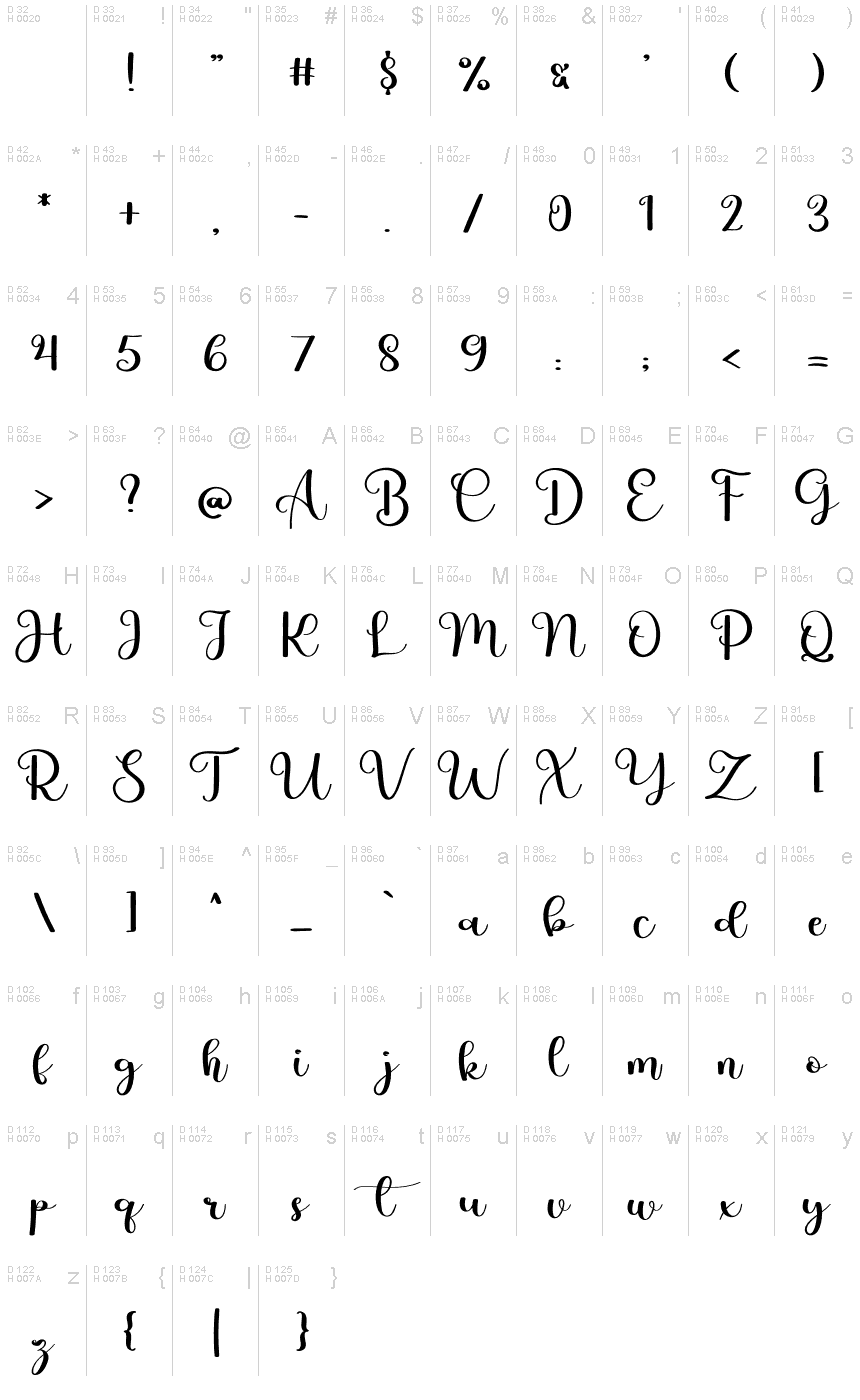
The Rain
The Rain, designed by Luluk Surotul, is a mesmerizing calligraphy font that brings a touch of elegance to any design project. Its semi-light weight gives it an airy, delicate feel that pairs perfectly with wedding invitations and other formal events. However, The Rain's versatility doesn't stop there - its flowing strokes also make it suitable for branding and packaging designs where a touch of sophistication is needed. With its unique style and graceful curves, The Rain is sure to make any project stand out from the crowd.